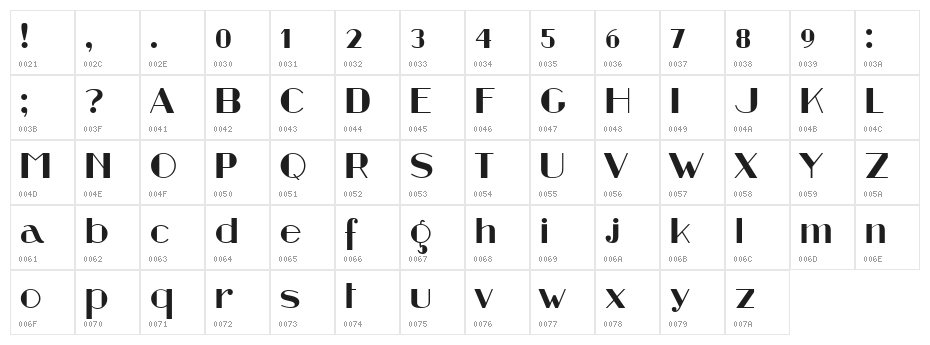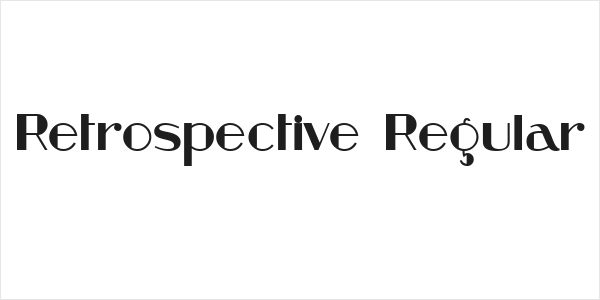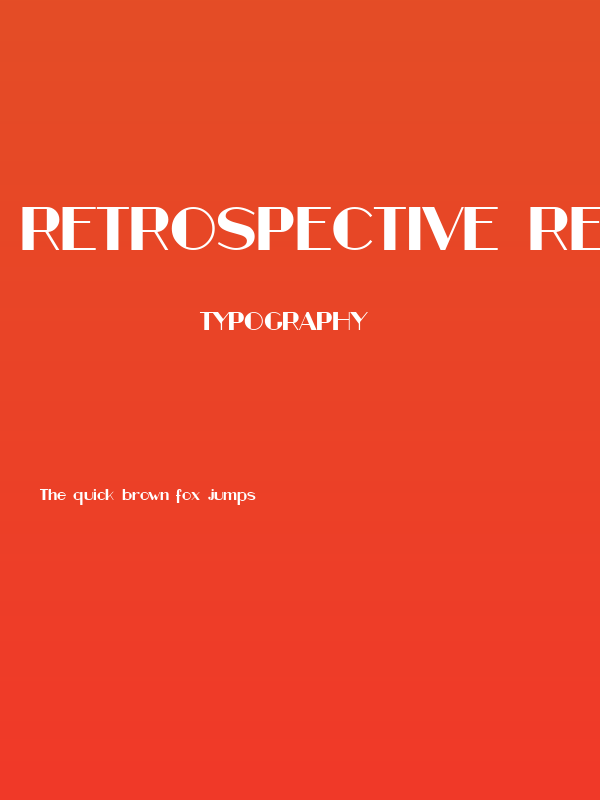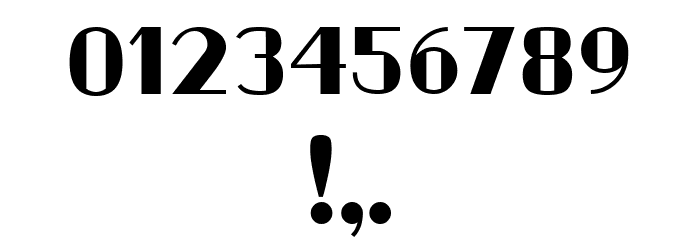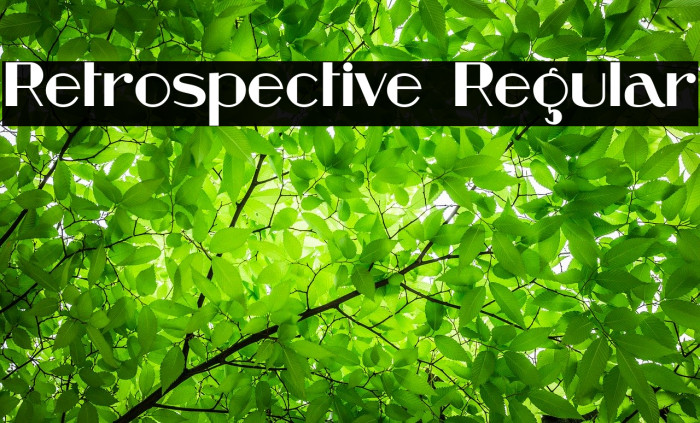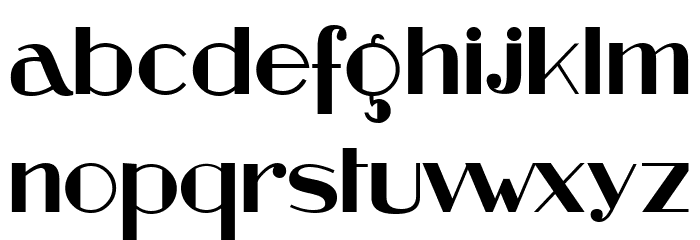
Retrospective Regular Font
Retrospective Regular Description
This font features a unique blend of modern and retro elements, characterized by its bold and geometric letterforms. The uppercase letters exhibit a strong presence with their thick strokes and sharp angles, while the lowercase letters maintain a more fluid and rounded appearance. The numerals are consistent with the overall style, offering a clear and distinct look. Special characters are designed to complement the main alphabet, maintaining the font's cohesive aesthetic. This typeface is versatile, suitable for various design applications that require a touch of elegance and modernity.
| Proposed Projects | Ideal for branding, headlines, posters, and editorial design projects. |